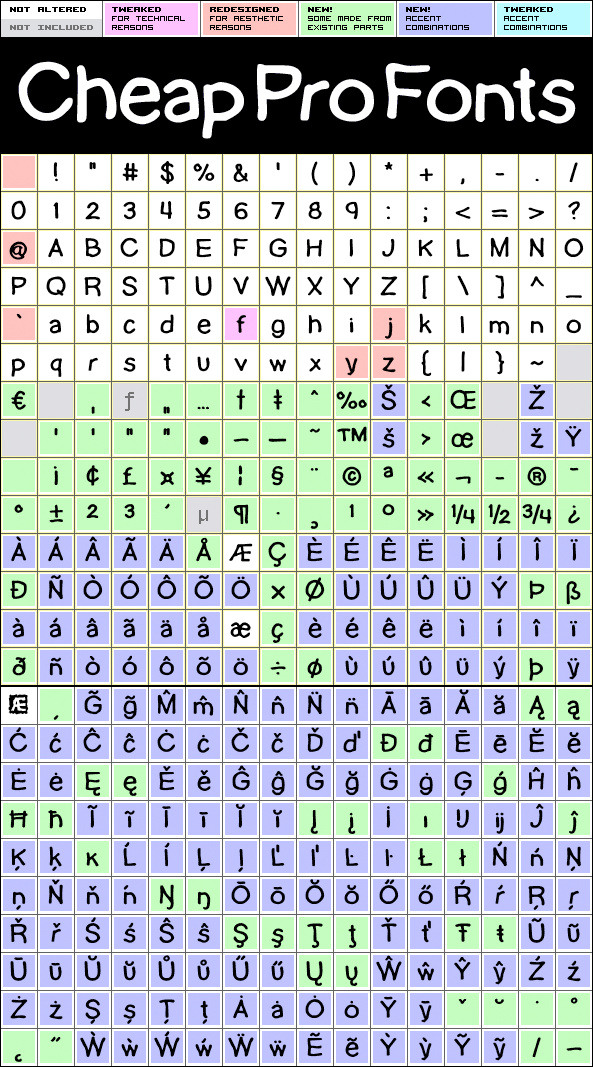
The first handwritten font on CheapProFonts - and what a beauty it is! :) The original font had no diacritics at all, so all have been designed to fit. This friendly looking font is ready to scribble some notes or something...
Lamebrain BRK Pro is a professionally reworked font that contains an extended character set for setting text in 65 languages requiring more than the basic A-Z!